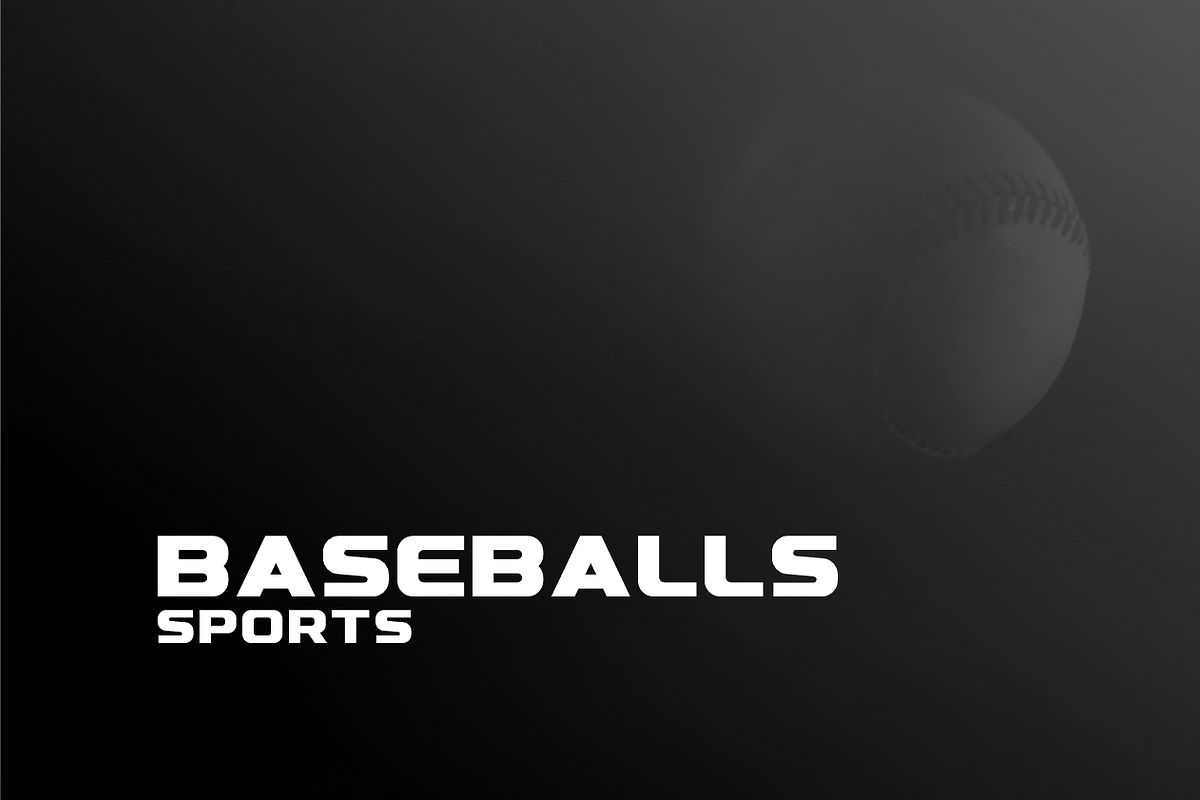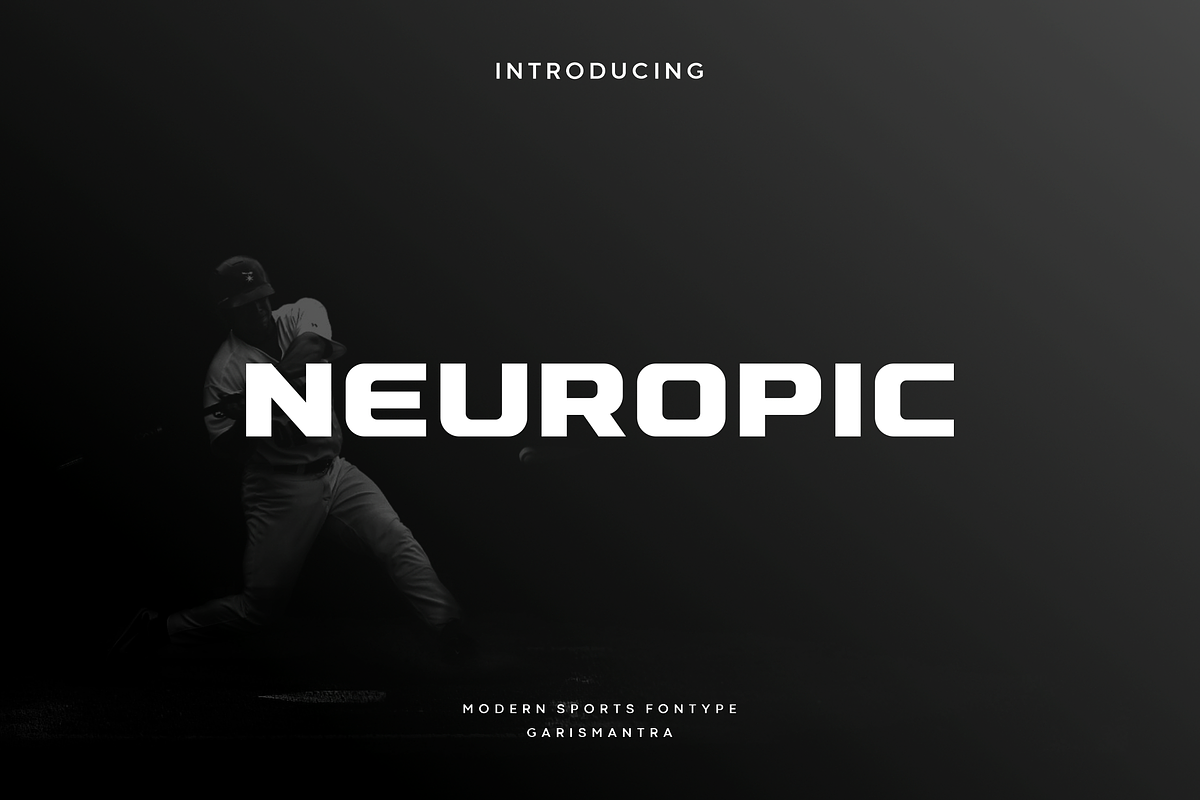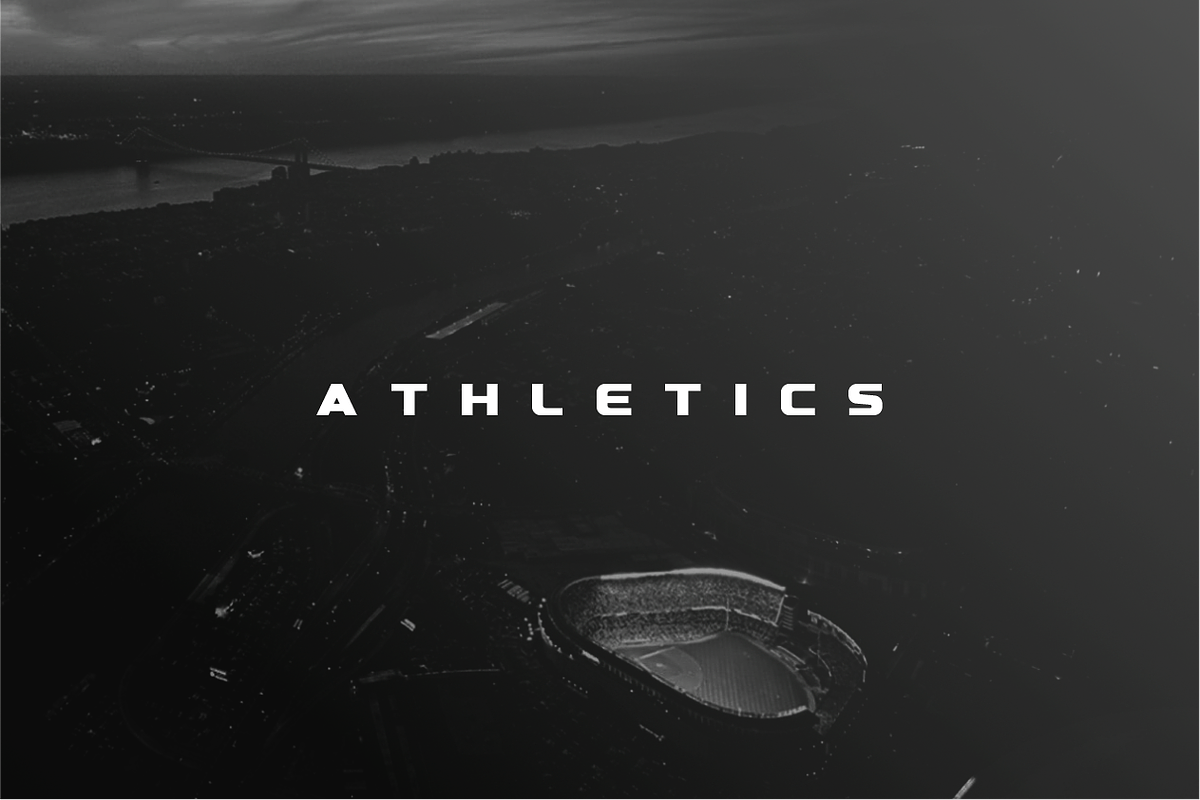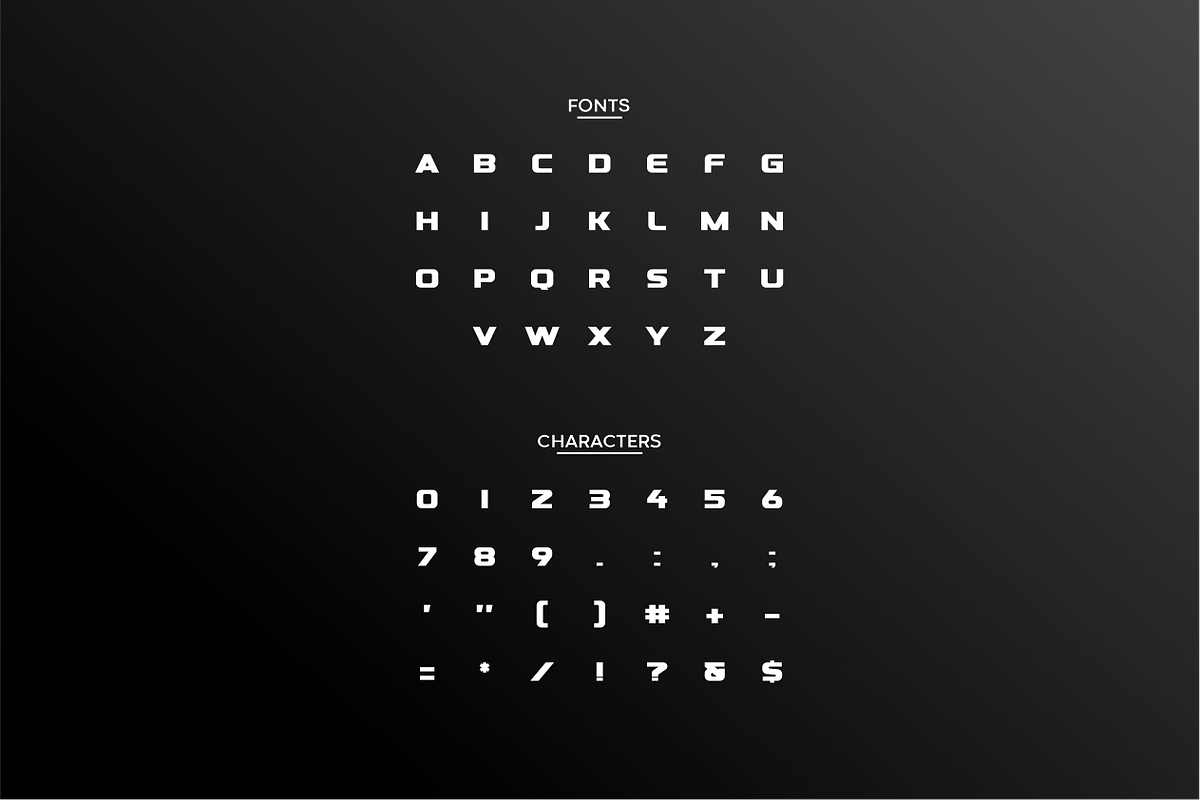
Neuropic
Neuropic is a thick lettered and bold display font. It will fit perfectly on each of your designs. Have fun with this beautiful font and explore its endless variations. Neuropic was created with sports designers and their usages of type in mind.